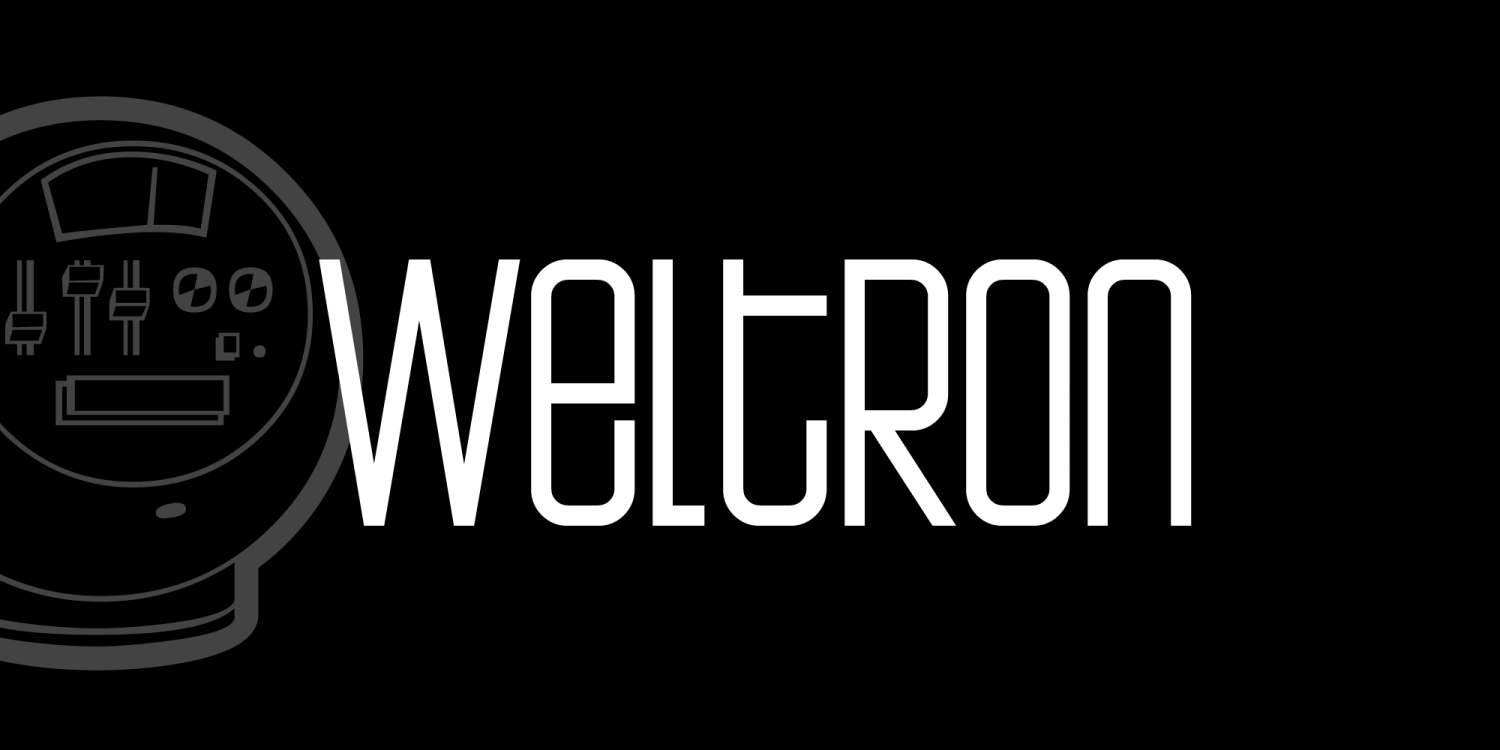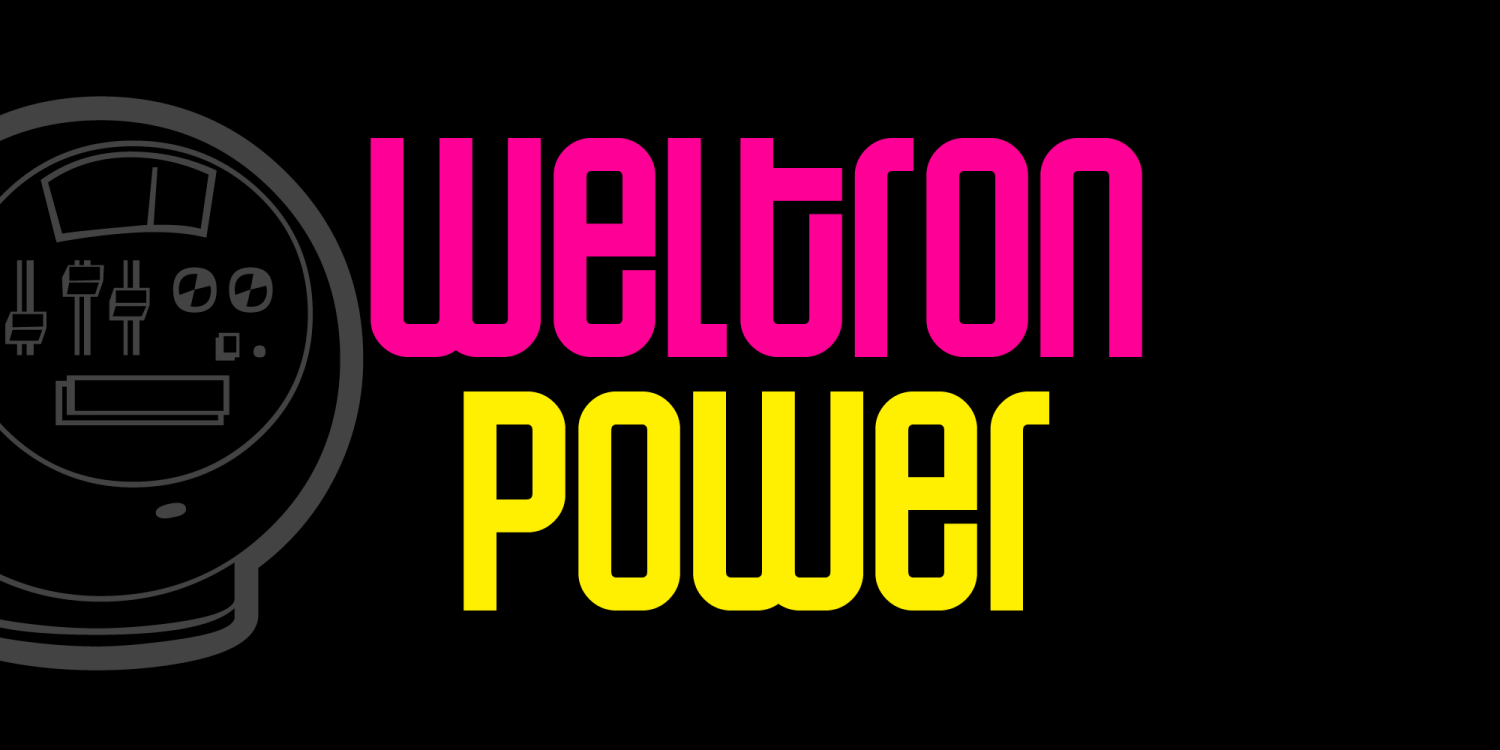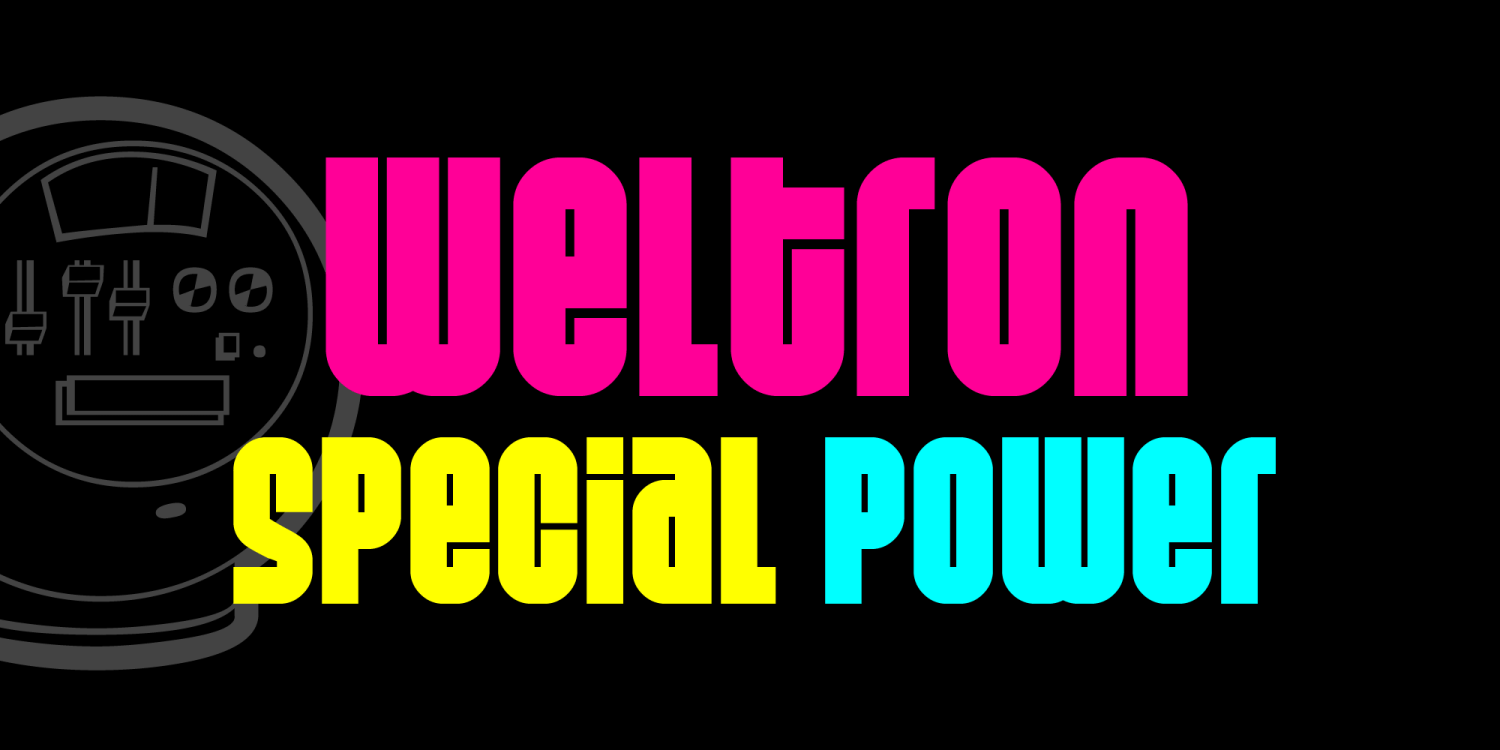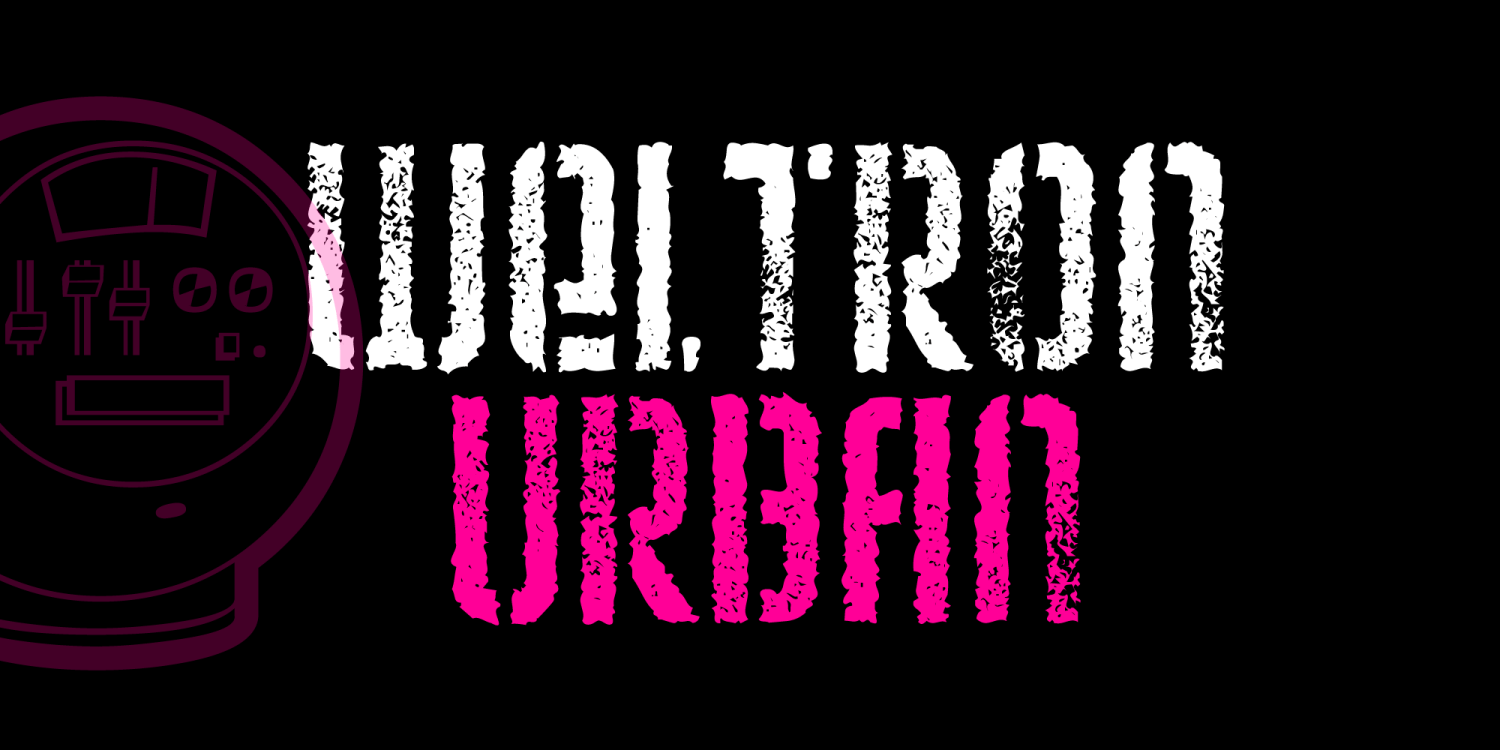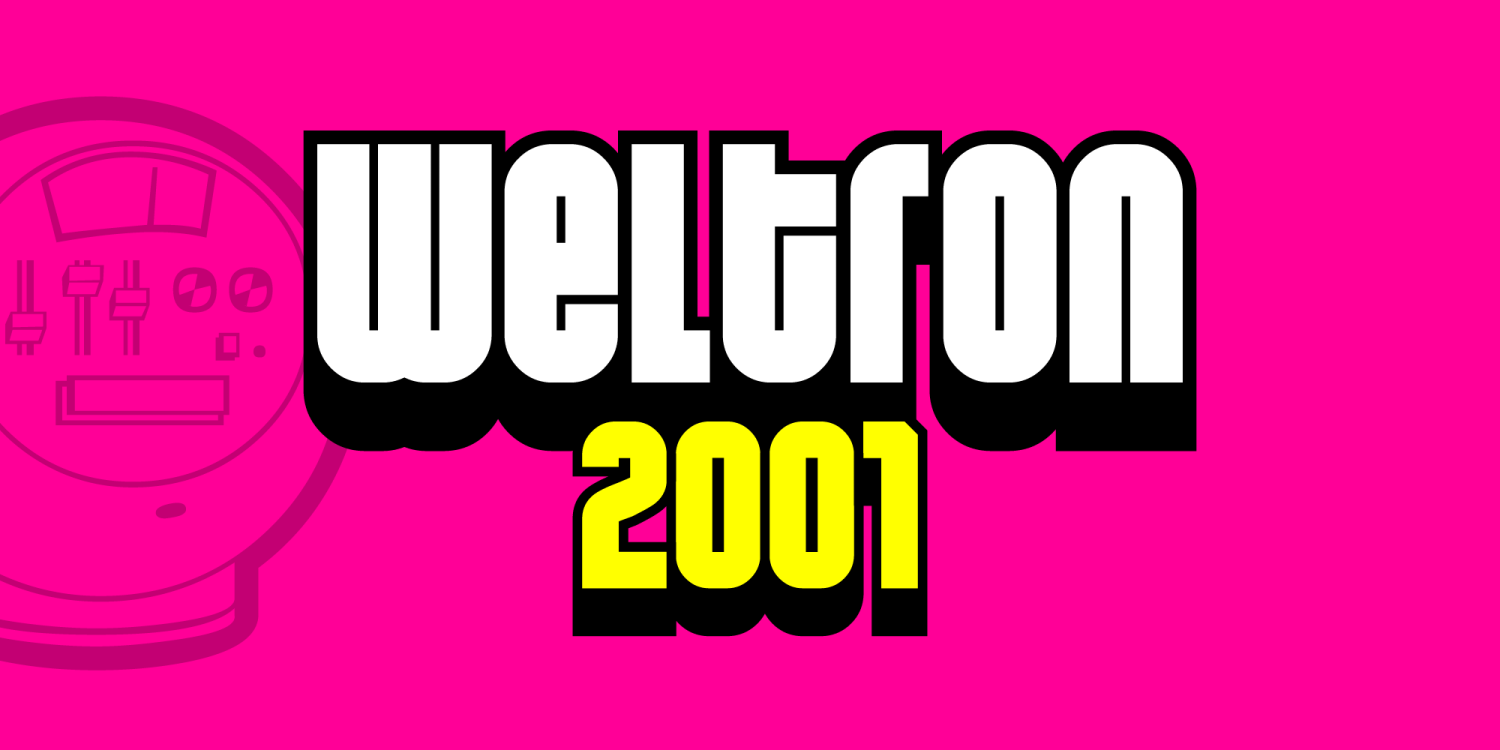
About Weltron
I haven't made any totally elite fonts in a while. I don't want people to think I am some punk that's all good looks and no class. So this afternoon I set to work on building a very clean-cut font that my friends can use to type regular stuff…